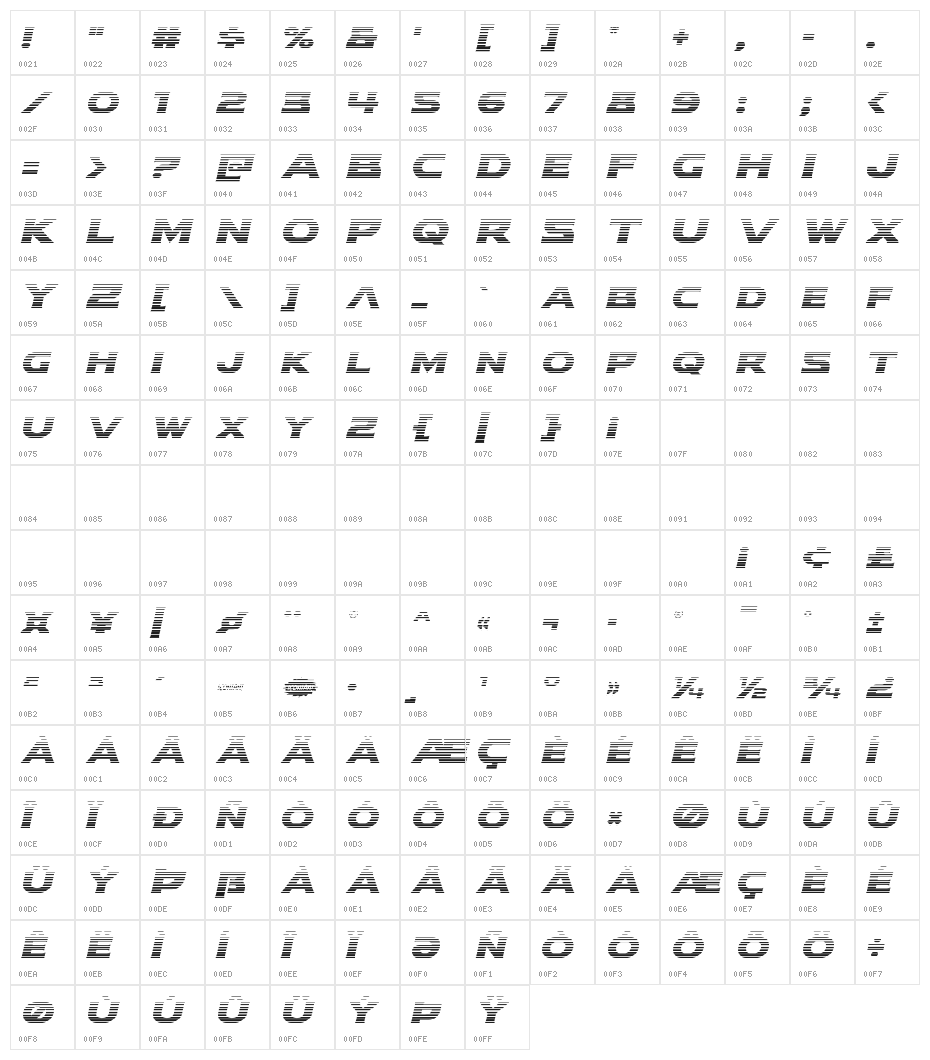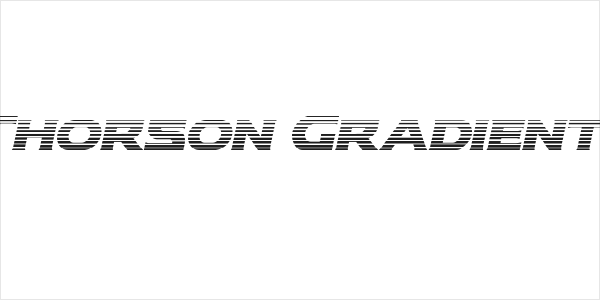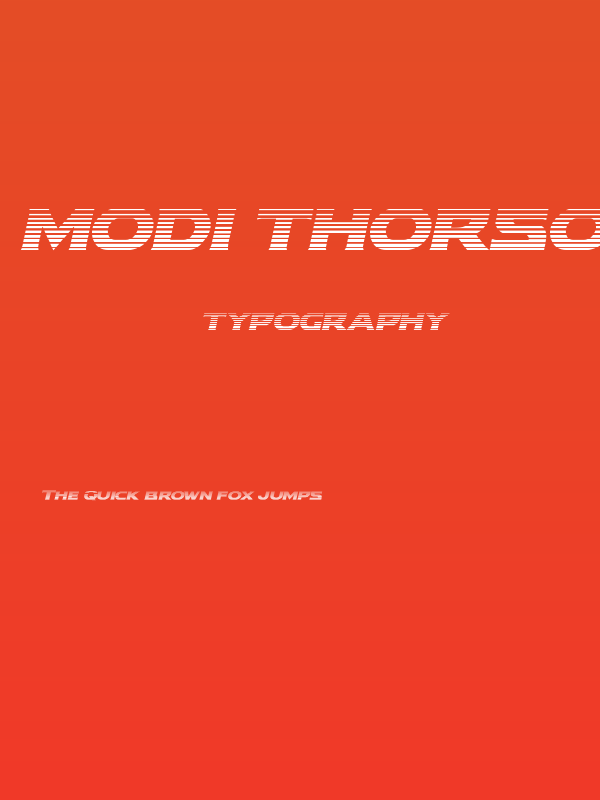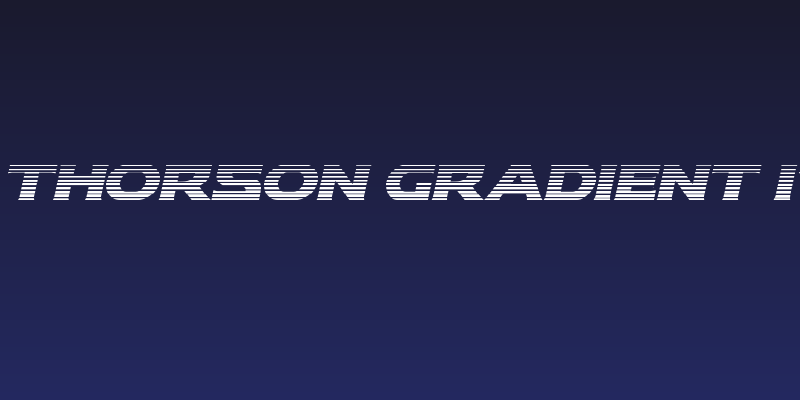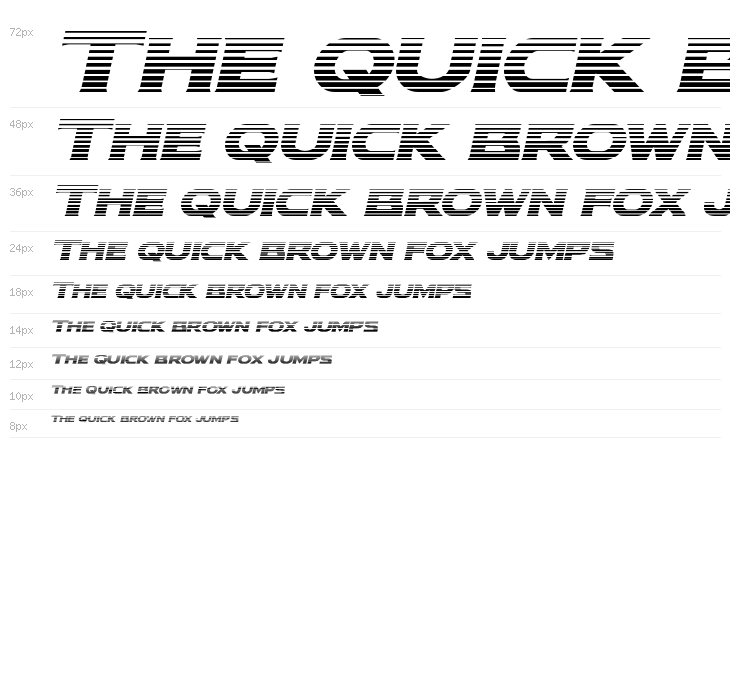
Modi Thorson Gradient Italic Font
Modi Thorson Gradient Italic Description
This font features a bold, italicized style with a distinctive gradient effect created by horizontal lines across each character. The uppercase and lowercase letters, along with numbers and special characters, maintain a consistent slant that adds a dynamic and modern touch. The design is visually striking, making it suitable for attention-grabbing headlines or creative projects. The characters are evenly spaced, ensuring readability despite the unique line pattern that defines the font's aesthetic.
Proposed ProjectsIdeal for modern branding, sports team logos, dynamic posters, and tech-related designs.